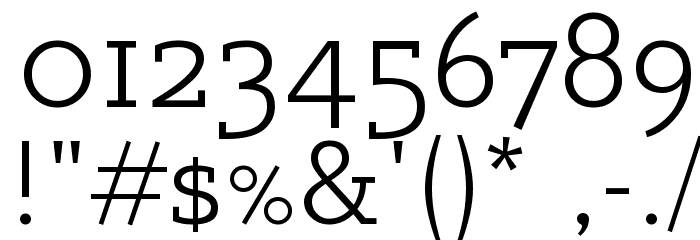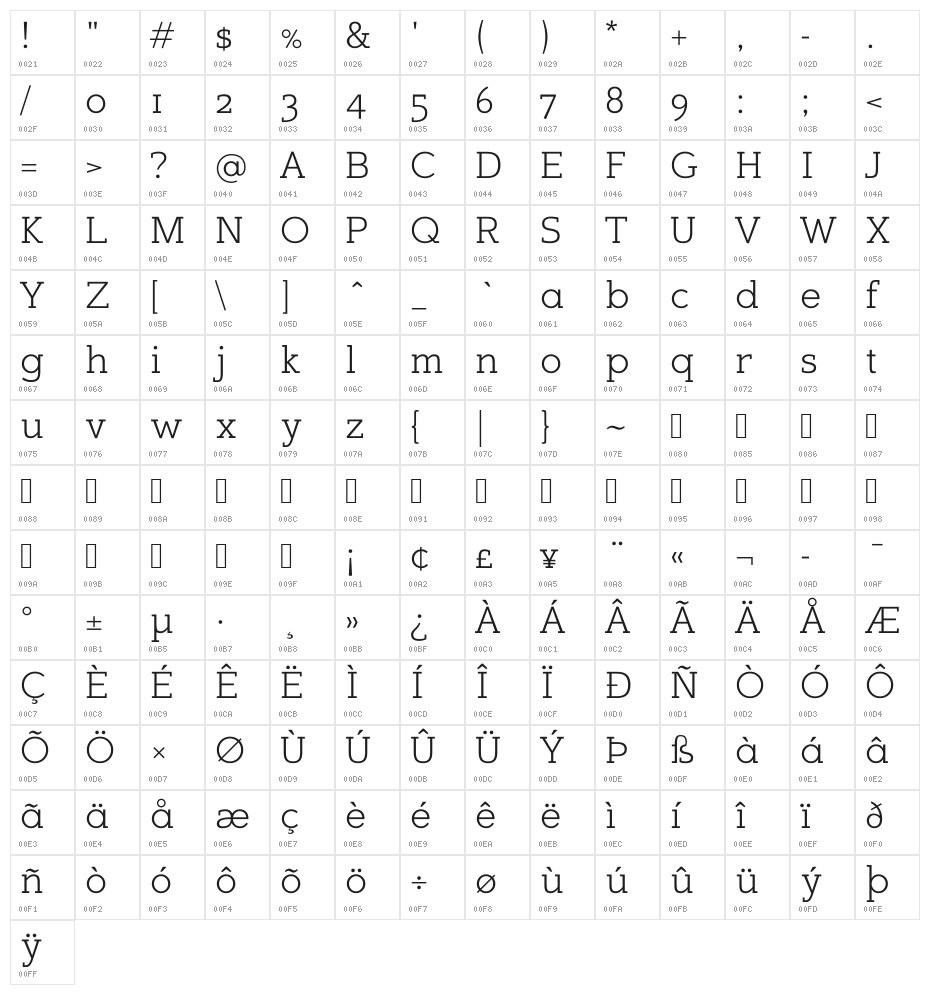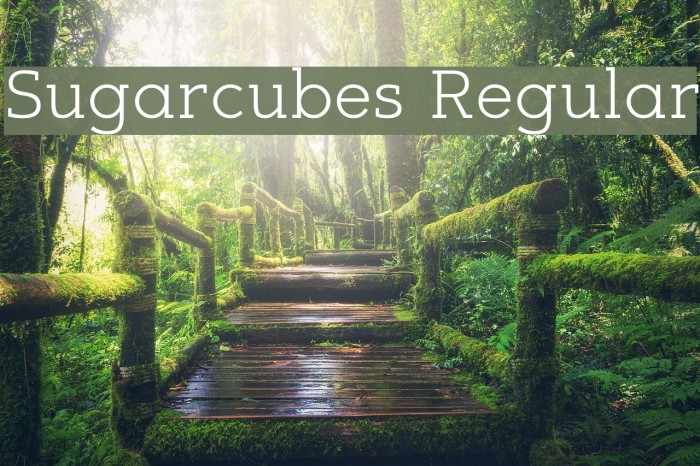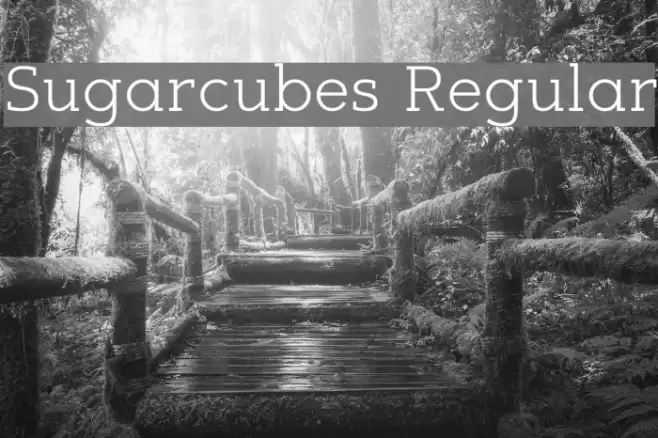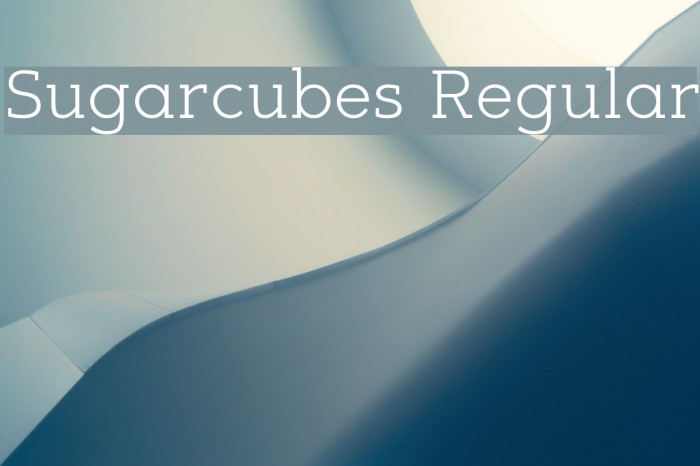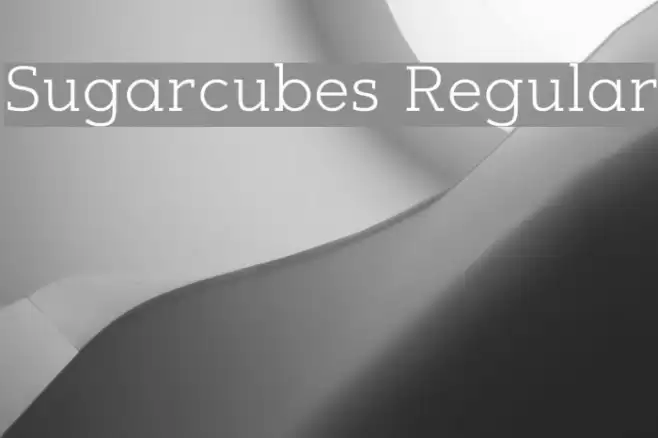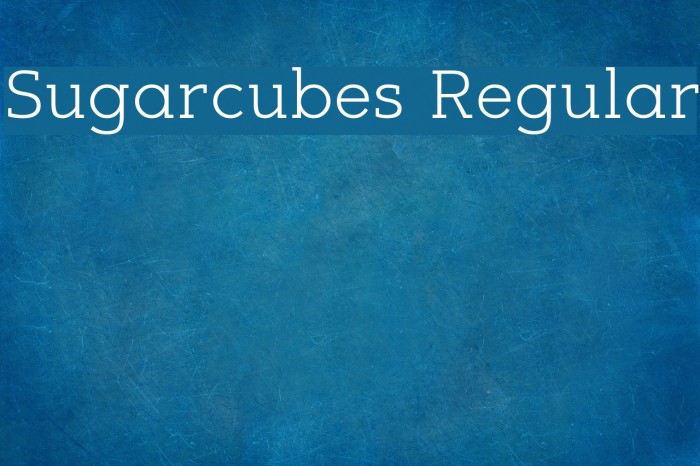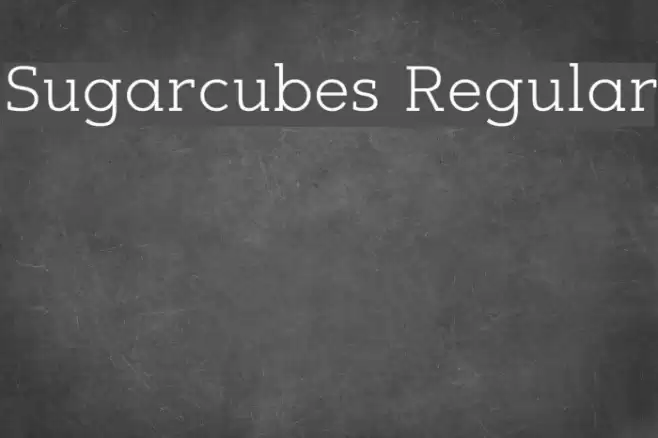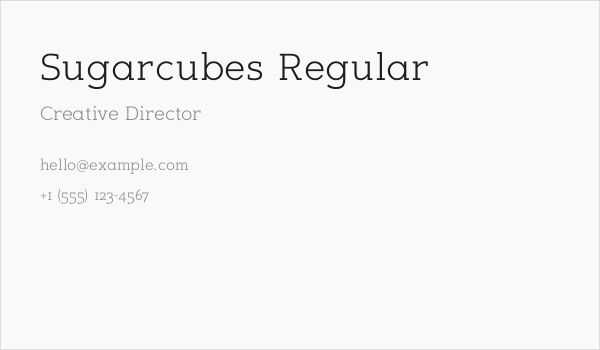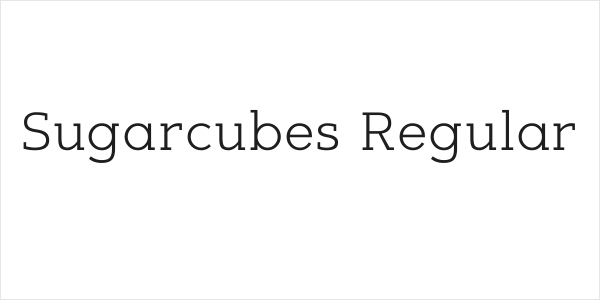
Sugarcubes Regular Font
Sugarcubes Regular Description
This font features a clean and modern design with a geometric structure. The characters are well-balanced, with a consistent stroke width that gives it a uniform appearance. The uppercase letters are bold and assertive, while the lowercase letters maintain a friendly and approachable feel. The numerals are clear and easy to read, making them suitable for various applications. Special characters are designed with the same attention to detail, ensuring they blend seamlessly with the rest of the typeface. Overall, this font exudes a contemporary vibe, making it versatile for both digital and print media.